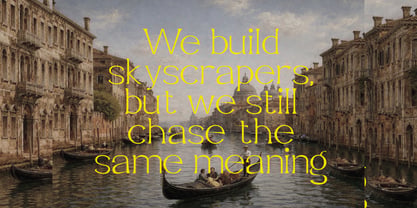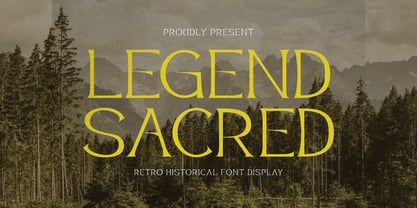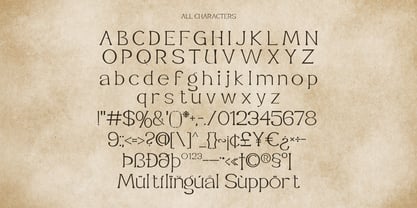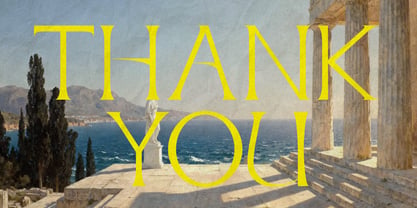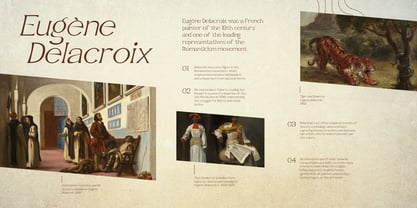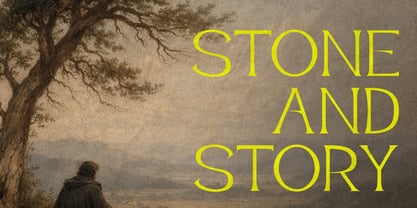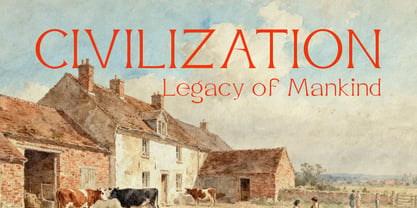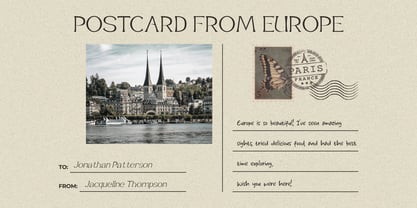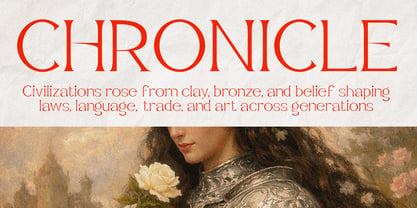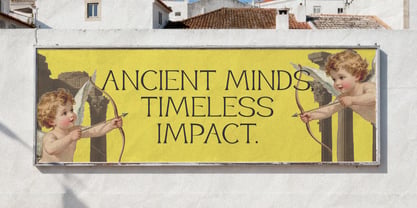
Legend Sacred
por Sronstudio
La familia tipográfica Legend Sacred fue diseñada por Muhamad Yusron Billah y publicada por Sronstudio. Legend Sacred contiene 2 estilos y opciones de paquete familiar. Más información sobre esta familia
Legend Sacred is a retro historical serif font inspired by classic typography and timeless heritage aesthetics. Featuring strong serifs, refined details, and an old-world character, this font evokes a sense of history, tradition, and authority. Perfect for vintage branding, book covers, posters, editorial layouts, and designs that seek a sacred or legendary atmosphere, Legend Sacred brings elegance and depth while preserving excellent readability and classic charm. What’s Included: - Regular & Italic styles - Numerals & punctuation - PUA encoded for easy access - Multilingual support - Works seamlessly on Mac & Windows Thank you very much!
Diseñadores: Muhamad Yusron Billah
Fundición: Sronstudio